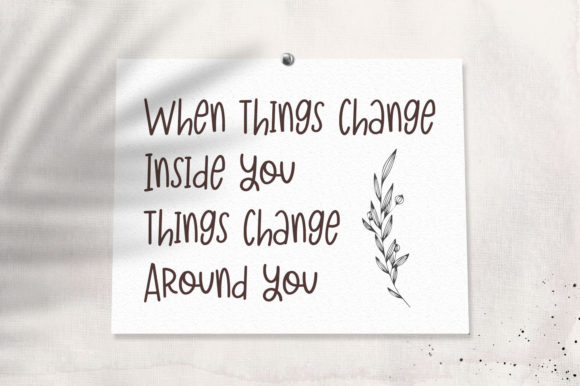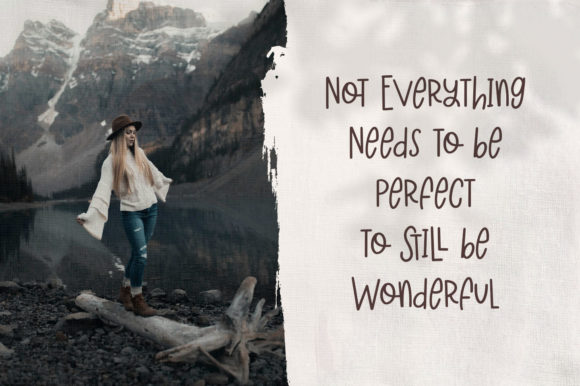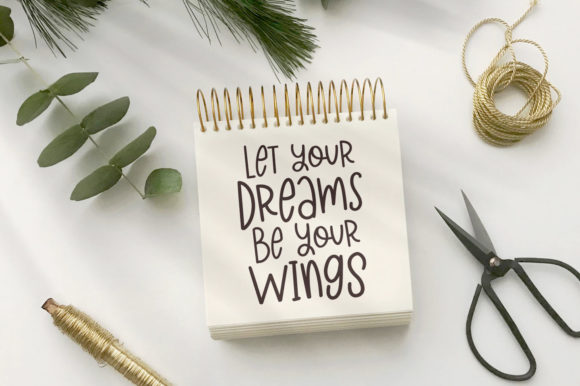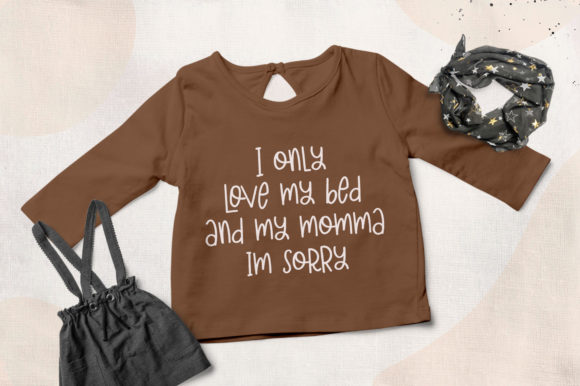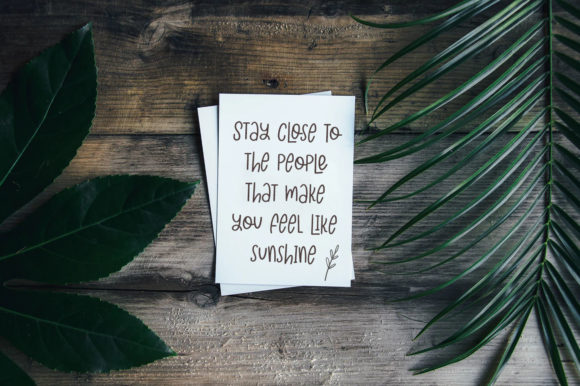
Introduction to Milloris Diary Font
Milloris Diary is a playful and unique display font that will easily add a fun touch to any crafting project.
Milloris Diary is a playful and unique display font that will easily add a fun touch to any crafting project!
Key Features of Milloris Diary Font
Why Choose Milloris Diary Font?
Milloris Diary Font offers exceptional quality and versatility, making it a valuable addition to your design toolkit. Whether you’re creating for personal projects or commercial use, Milloris Diary Font delivers professional results.